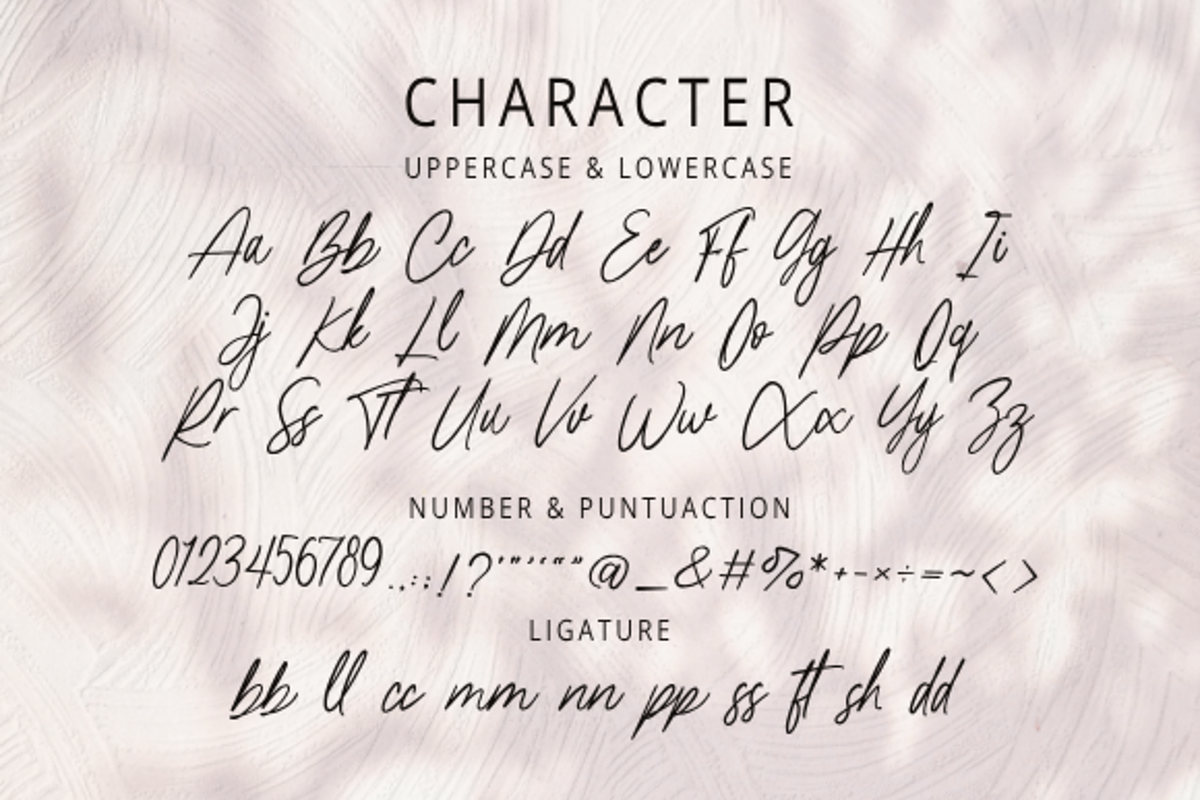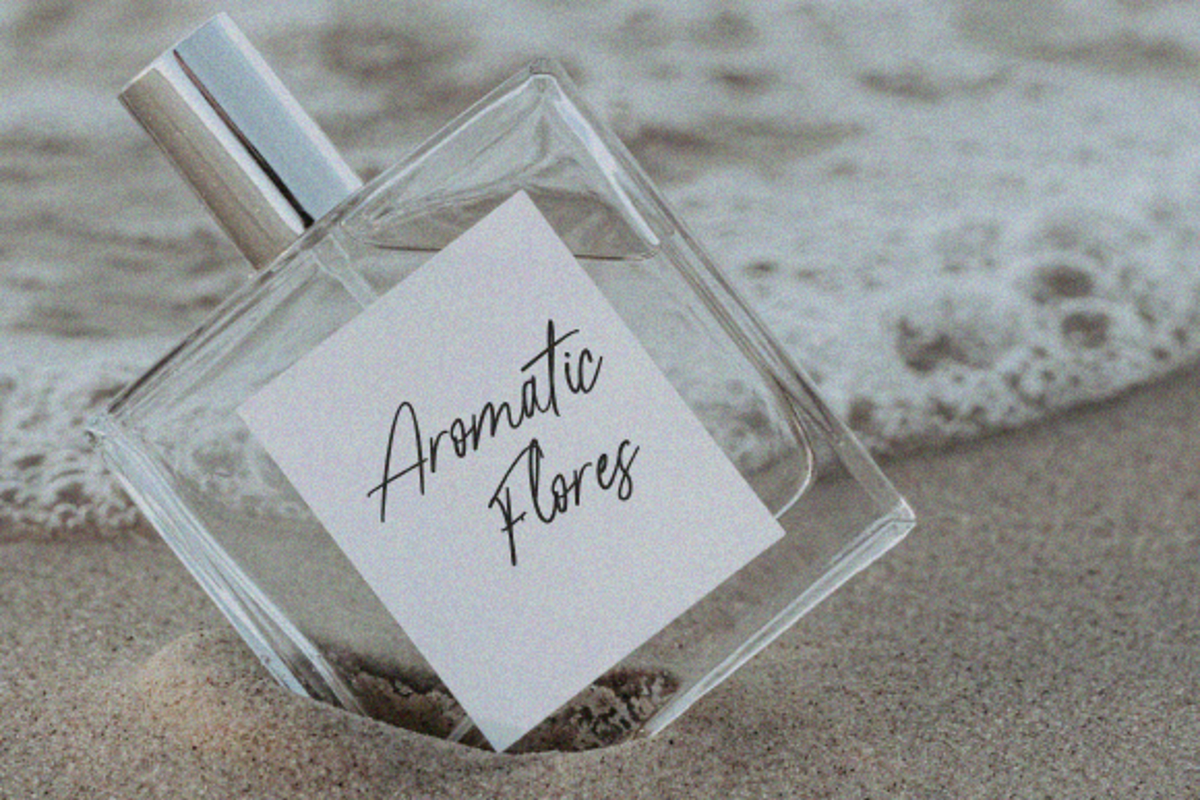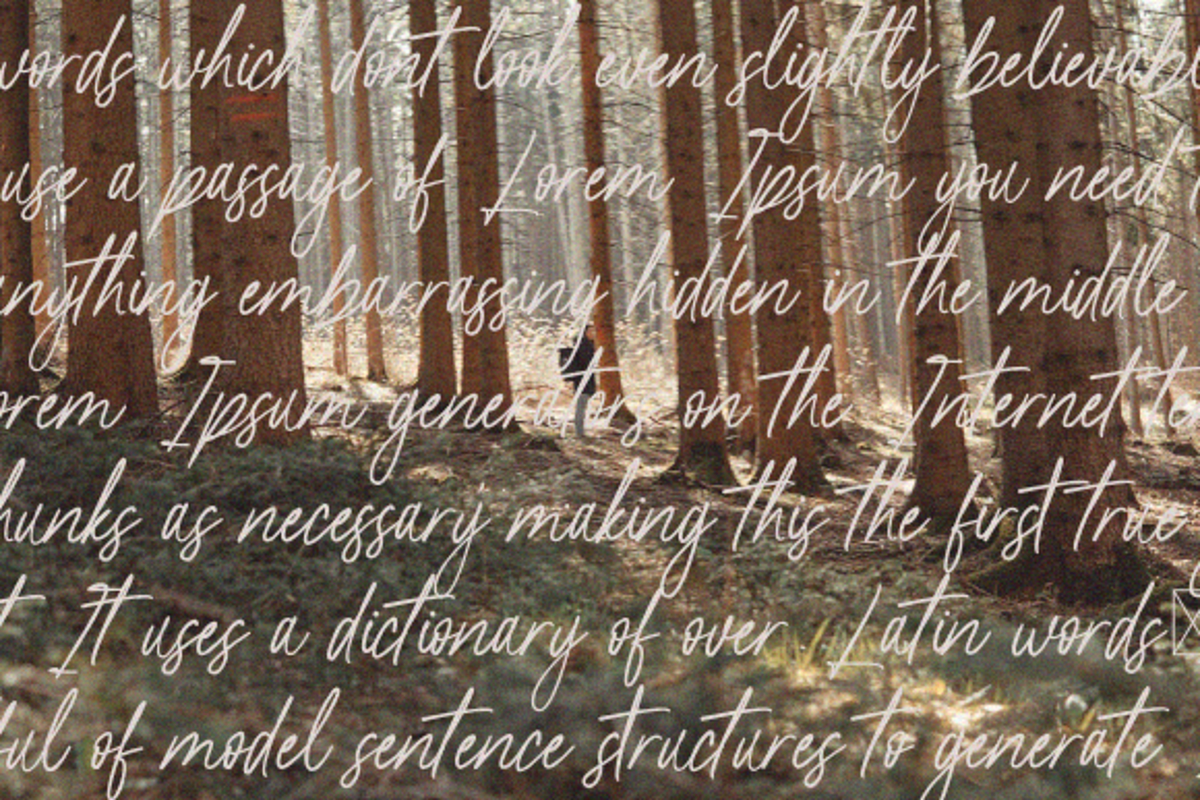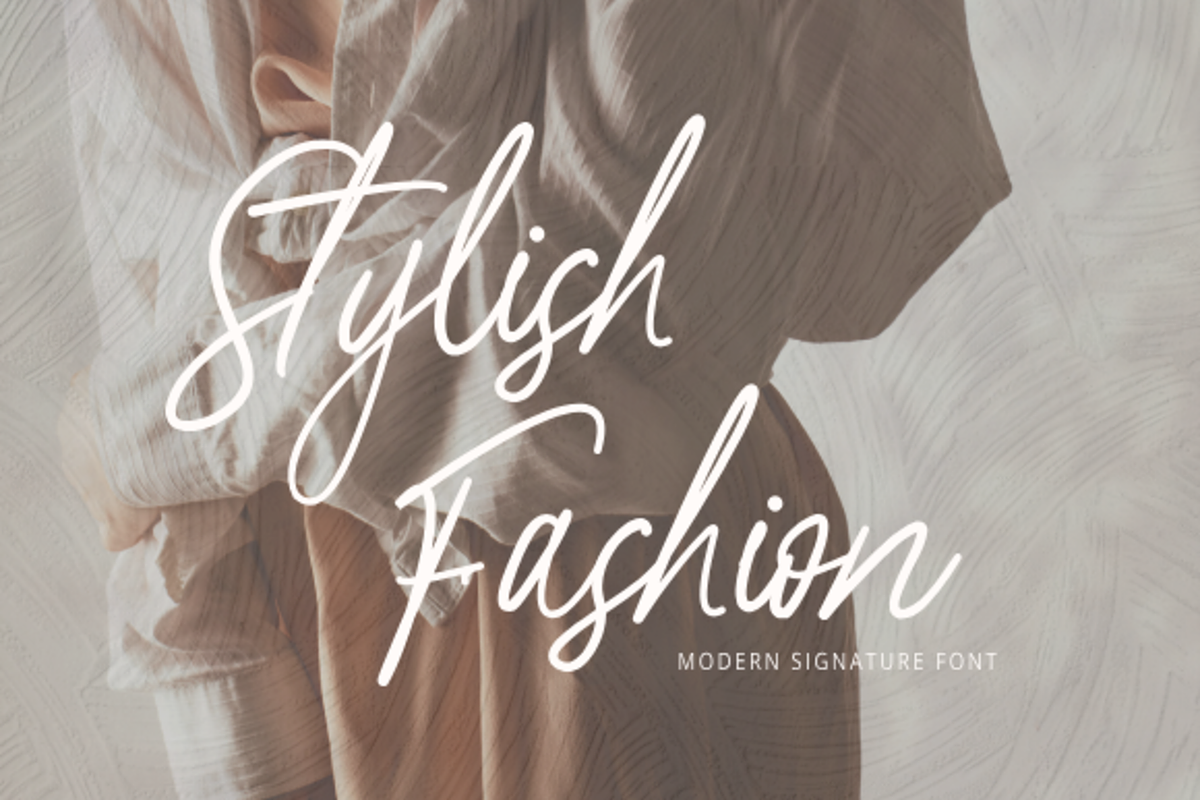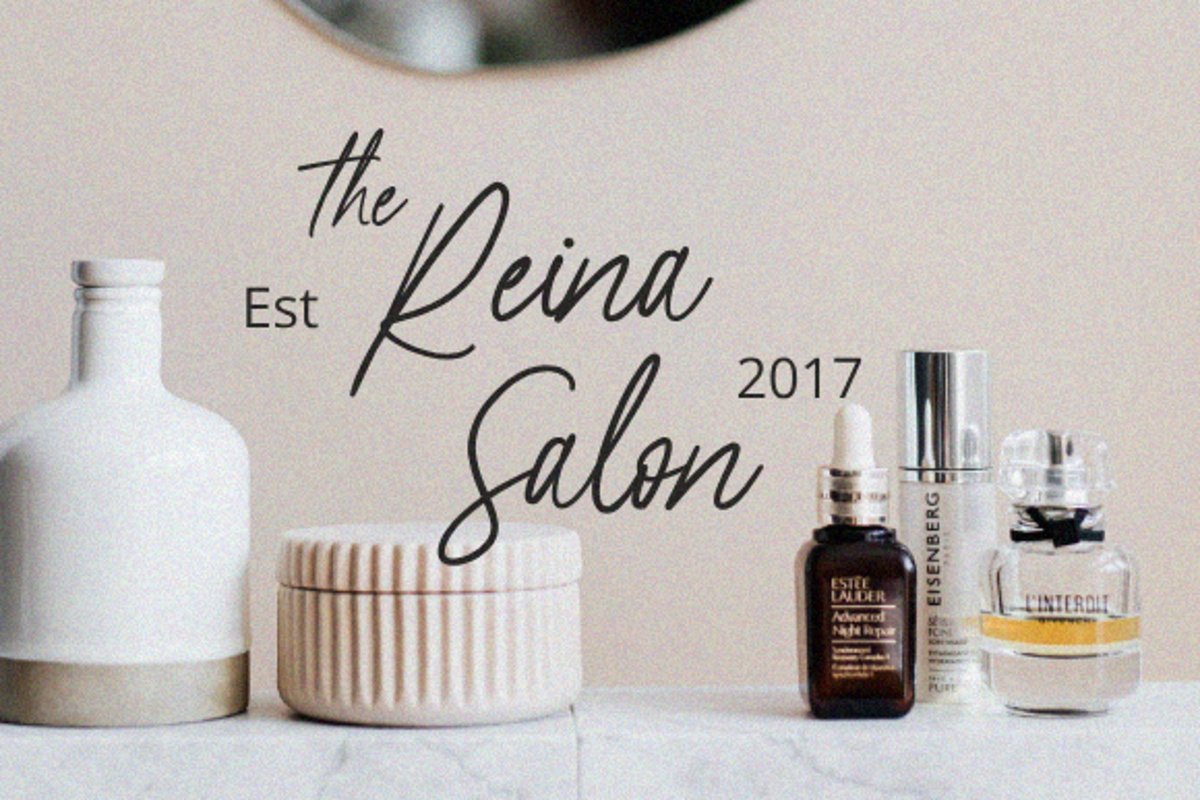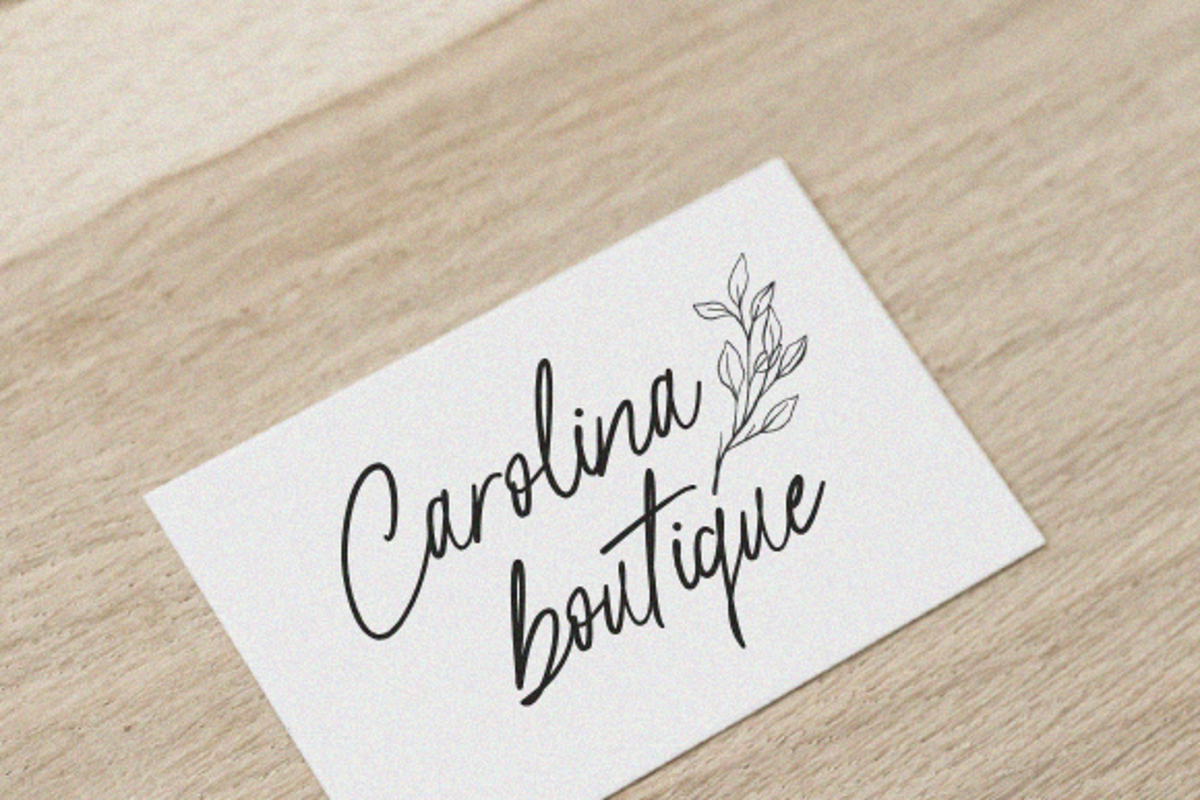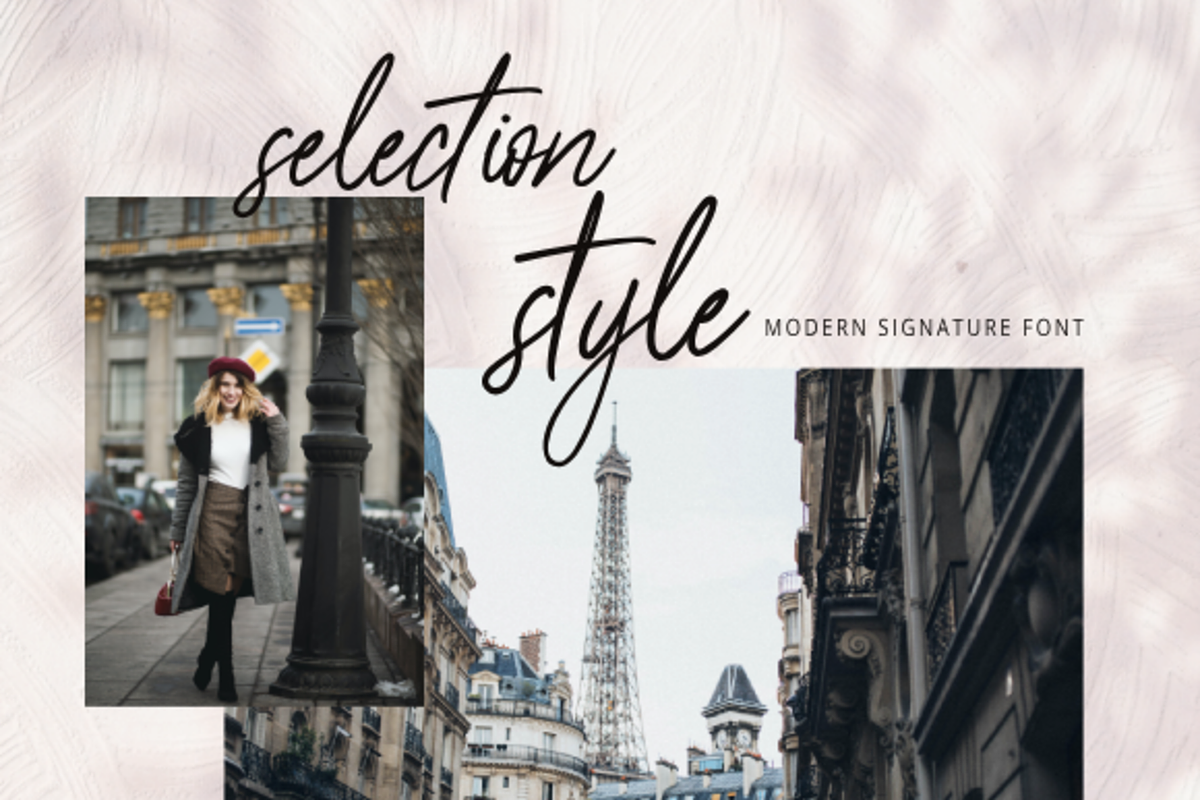
Stylish Fashion
The “Stylish Fashion” font exudes a charming blend of modern sophistication and elegance. Its sleek, carefully crafted letterforms embody the essence of high fashion, making it an ideal choice for projects that demand a touch of glamor and sophistication.
-Full alphabet with Uppercase and Lowercase A-Z for script
-Numbers for all fonts
-Punctuation and symbols for all fonts
-Ligature Lowercase script
-Multilingual support all fonts